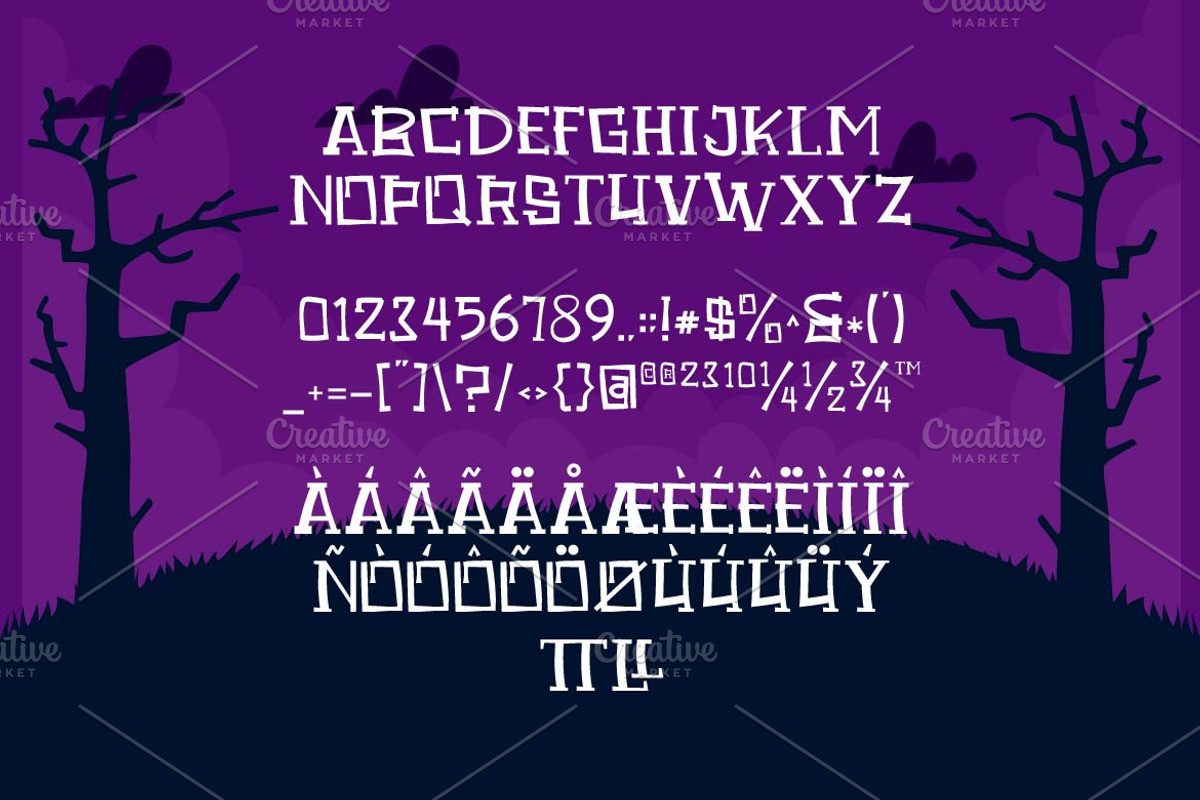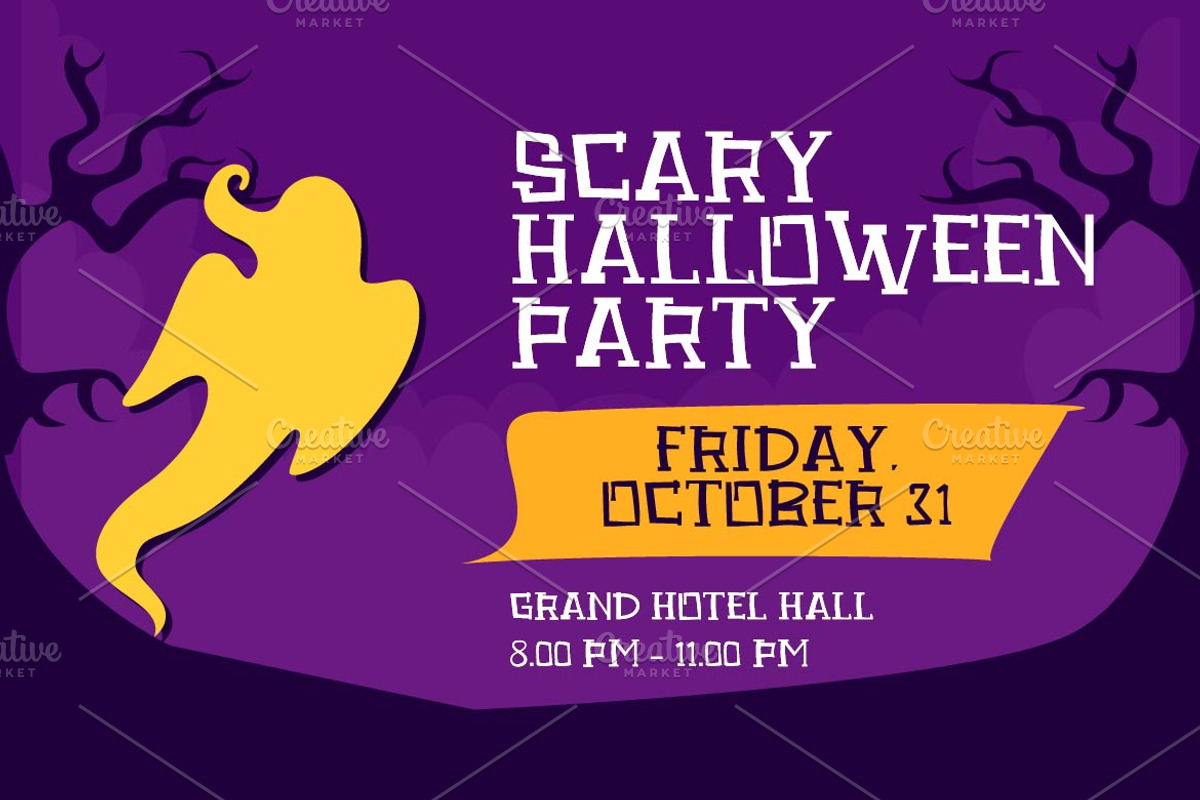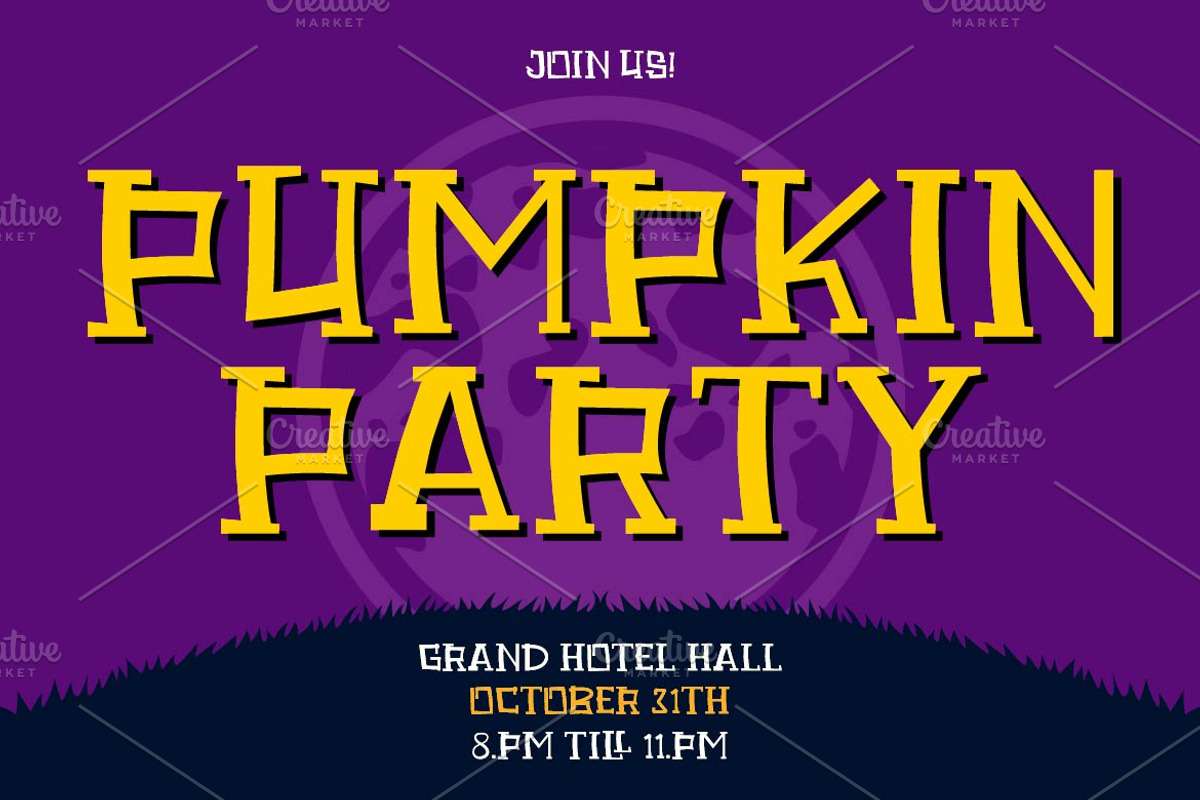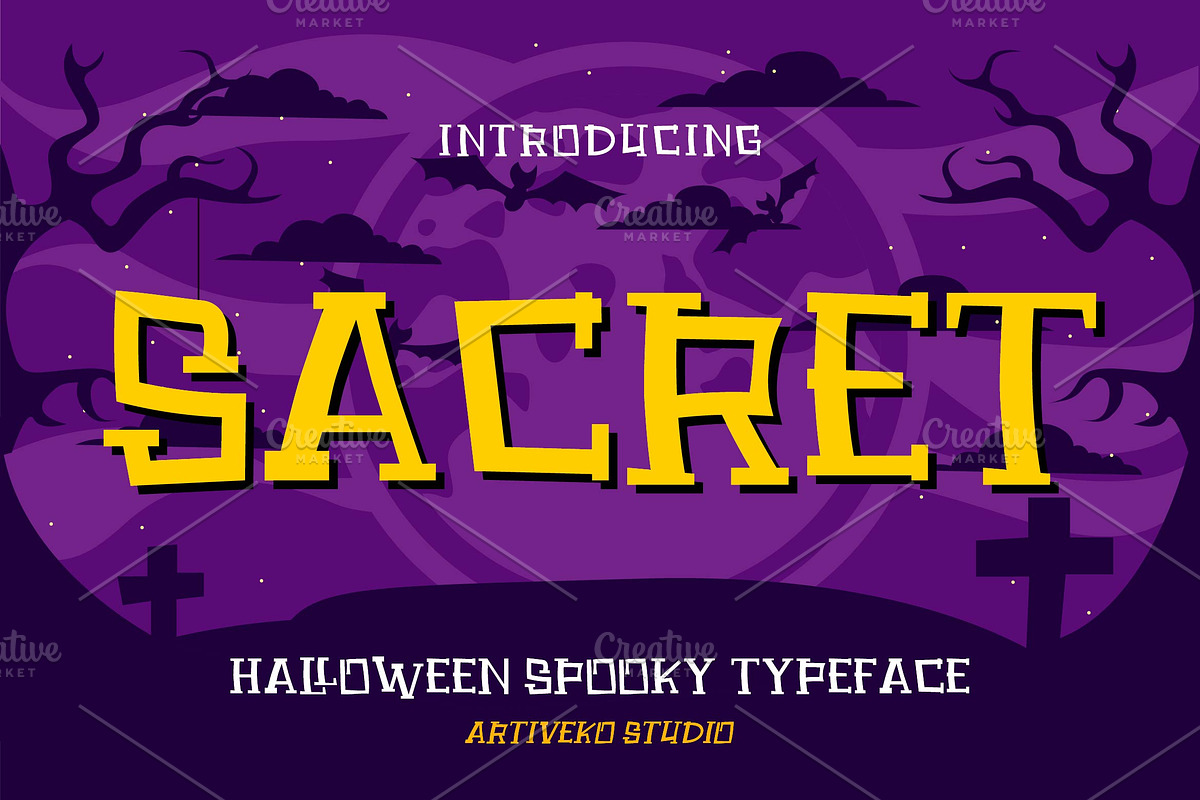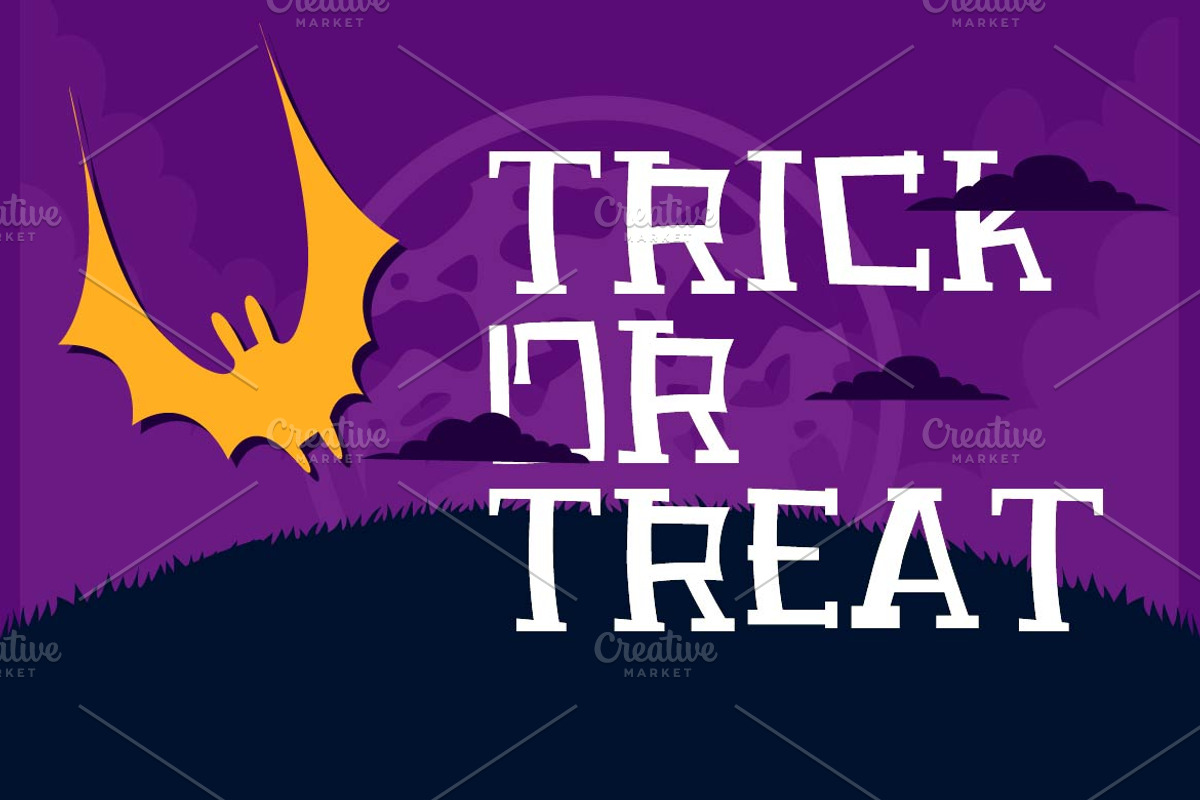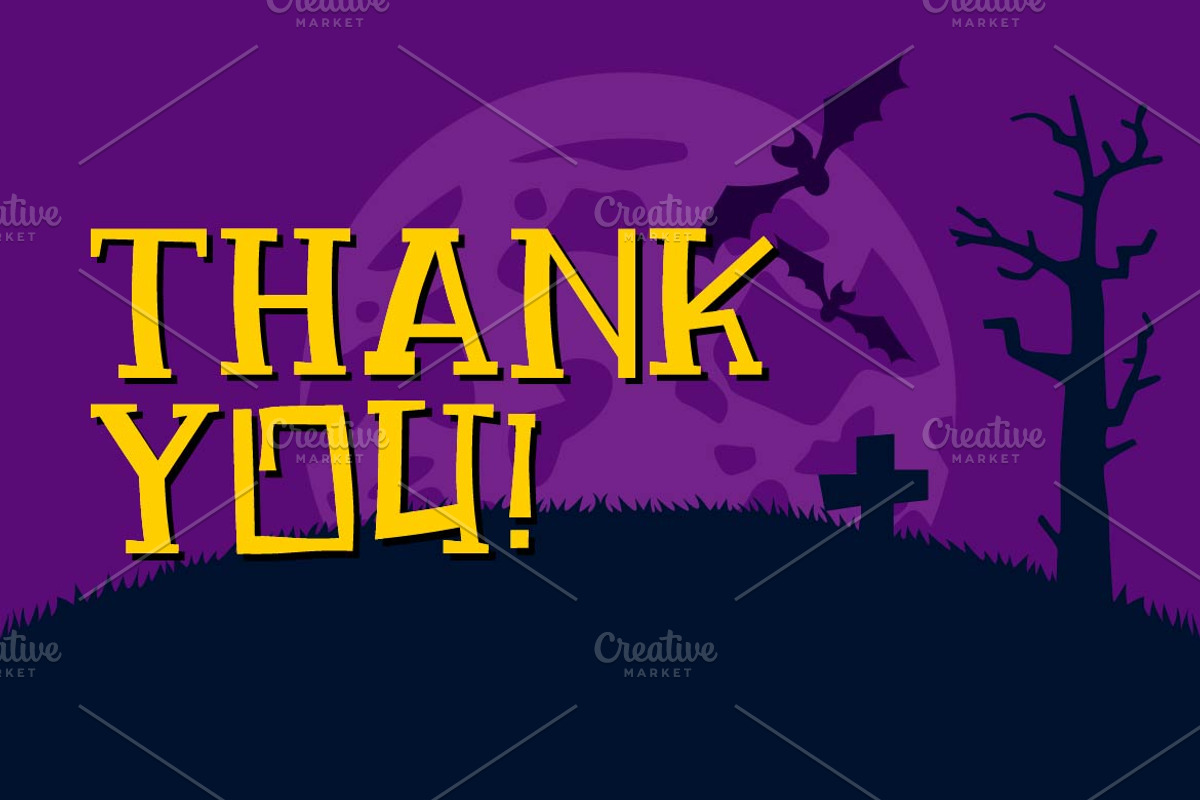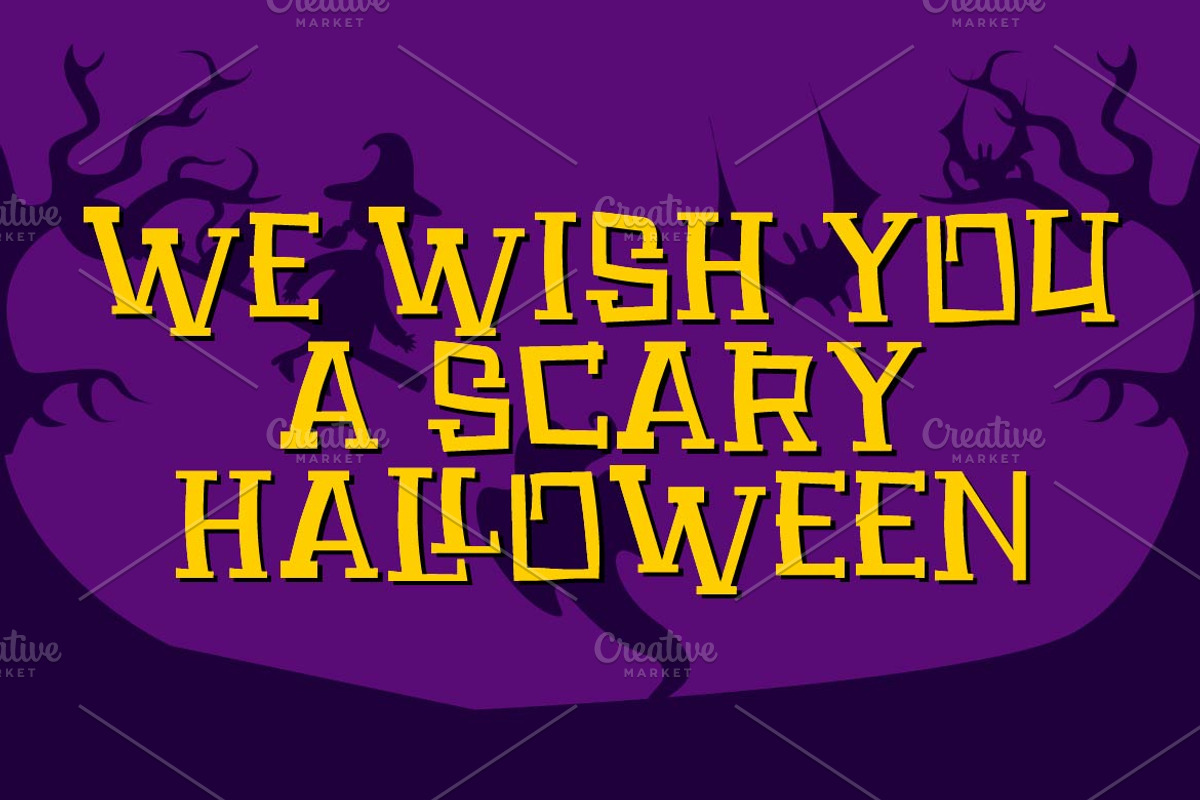
Sacret Display Halloween Font
Sacret is a spooky Halloween display font by Iwan Alwan, featuring eerie, dramatic letterforms that evoke mystery and fright. Perfect for Halloween posters, party invitations, themed branding, and decorations, Sacret adds a chilling yet fun atmosphere to your designs. With multilingual support, unique alternates, and hauntingly creative details, Sacret is the ideal choice for projects that embrace the spooky season with bold, unforgettable style.